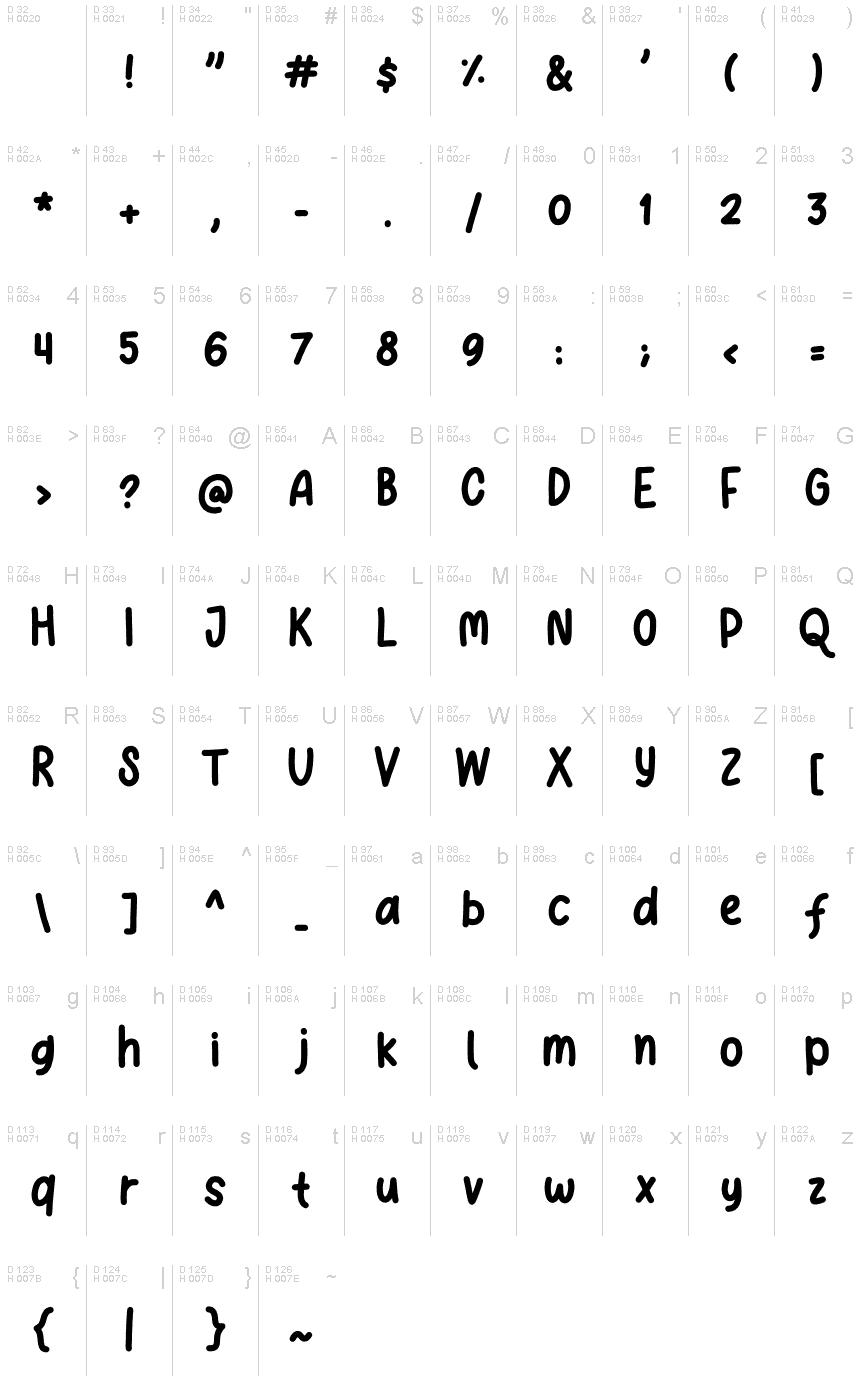
DOLBY ALMOST DEMO
Dolby Almost, the latest handwritten typeface by Elbanadha Creative, is perfect for adding a touch of personal flair to your projects. Its semi-condensed width allows for easy reading while still maintaining its unique charm. Whether you're designing invitations, creating social media graphics, or crafting a logo, Dolby Almost's playful and organic style will elevate your work with its whimsical curves and natural flow. This font is particularly suitable for projects that require a personal touch such as wedding invitations, greeting cards, and branding for small businesses. Get creative with Dolby Almost and watch your designs come to life!